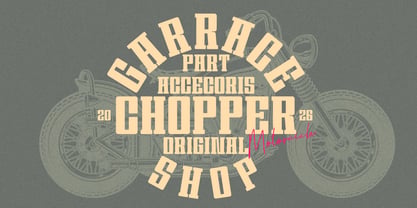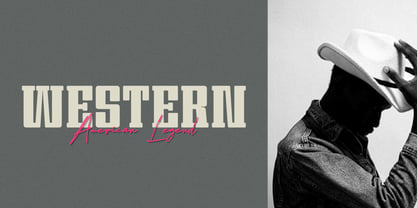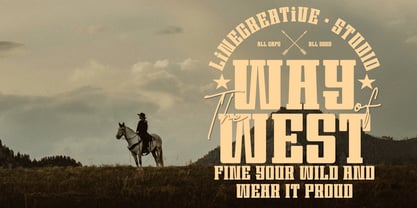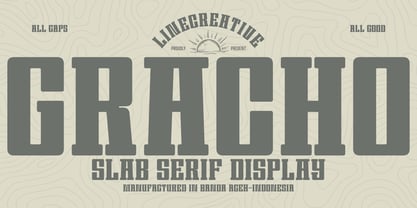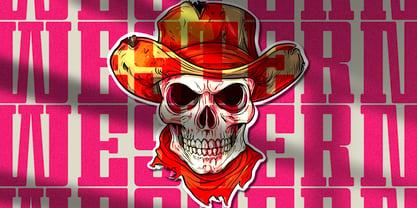
Gracho
by Linecreative
The Gracho Font Family was designed by Ari Juanda and published by Linecreative. Gracho contains 1 styles. More about this family
Gracho is a bold slab serif display font designed with a strong, confident, and commanding character. Inspired by vintage and industrial aesthetics, it features solid letterforms, wide proportions, and thick, consistent slab details that create a powerful visual presence. This font stands out with its sturdy structure and masculine tone, making it highly suitable for headlines, logos, posters, branding, and designs with retro, western, or heritage themes. Gracho blends classic influence with a modern touch, ensuring versatility across various contemporary design needs. Presented in an all caps style, Gracho delivers a dominant and assertive typographic voice. Its excellent readability at large sizes allows it to capture attention effortlessly while maintaining clarity and impact. Gracho is an ideal choice for designers seeking a bold, timeless, and authoritative visual identity.